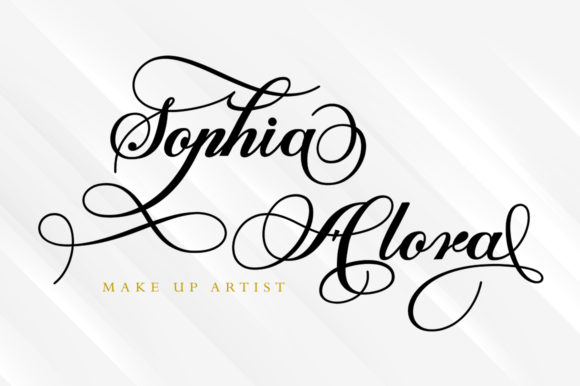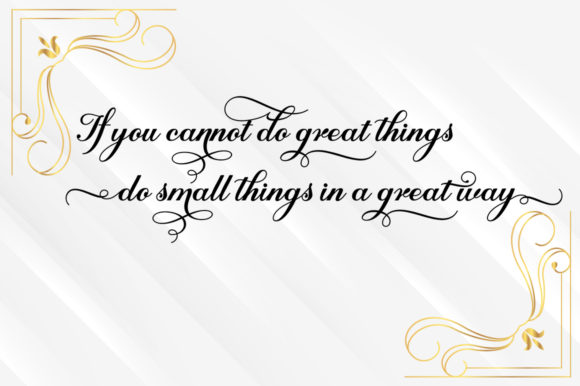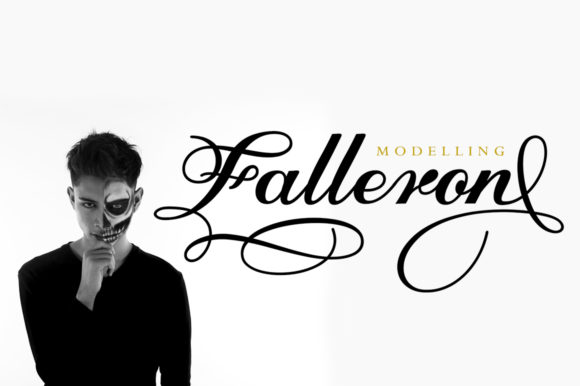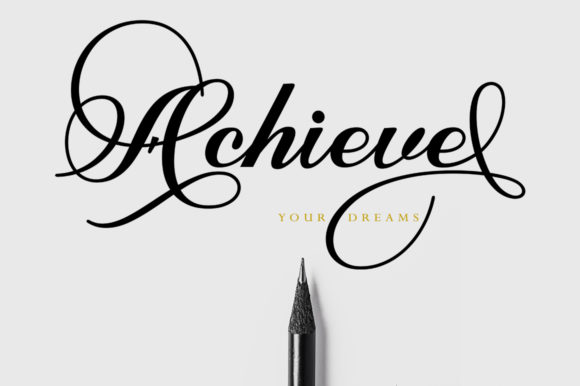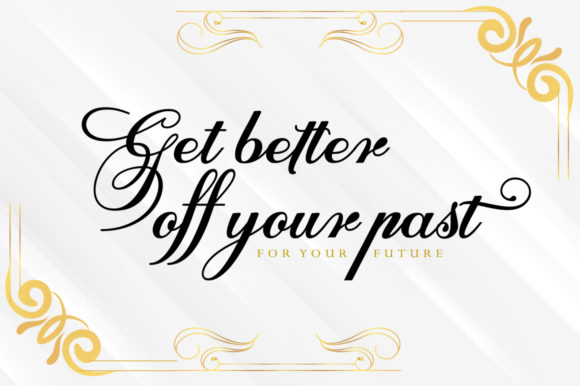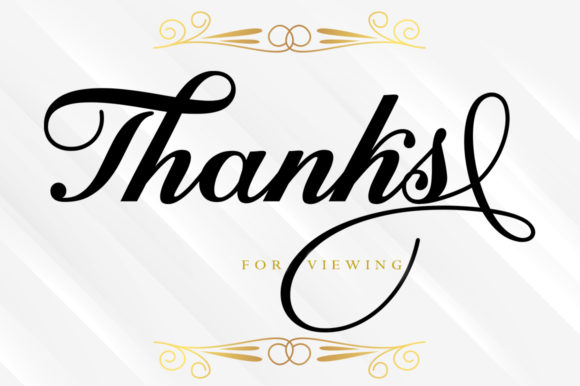
The Elegant Allure of Arunika Font: A Designer’s Delight
I still remember the design project that led me to discover the stunning Arunika Font. I was working on a branding project for a luxury wedding planner, and I needed a font that exuded elegance, sophistication, and romance. After hours of scouring through font libraries, I stumbled upon Arunika, and it was love at first sight! ✨
Arunika is an elegant and flowing handwritten font that has become a staple in my design toolkit. Its PUA encoding makes it incredibly easy to access all the glyphs and swashes, allowing me to take my designs to the next level. In this article, I’ll share my honest review of Arunika, provide a practical guide on how to use it, and explore similar fonts that you might love.
• 💫 Elegant and flowing handwritten script with a classy, calligraphic feel
• 🌟 Maintains a contemporary and fresh feel while being rooted in traditional calligraphy
• 👍 Highly versatile and suitable for a wide range of design projects, from wedding stationery to luxury branding
• ⚠️ Some users may find the font a tad too ornate for very casual or playful projects
• 🤔 Limited availability of certain characters or diacritics (but this is being addressed by the font creator)
The Story Behind Arunika Font
Arunika Font was created with a passion for elegant, handwritten typography. The designer aimed to craft a font that would evoke the feeling of luxury and sophistication while still being approachable and modern. Through meticulous attention to detail and a deep understanding of typographic principles, Arunika was born – a font that has captured the hearts of designers and crafters worldwide.
Q: What is PUA encoding, and how does it benefit Arunika Font?
A: PUA (Private Use Area) encoding allows for easy access to glyphs, swashes, and other special characters within the font. This means you can effortlessly create beautiful, intricate designs with Arunika.
Q: Is Arunika Font suitable for body text or long-form content?
A: While Arunika is an elegant font, it’s best suited for headlines, titles, or short paragraphs. Its ornate nature may make it challenging to read in long-form content.